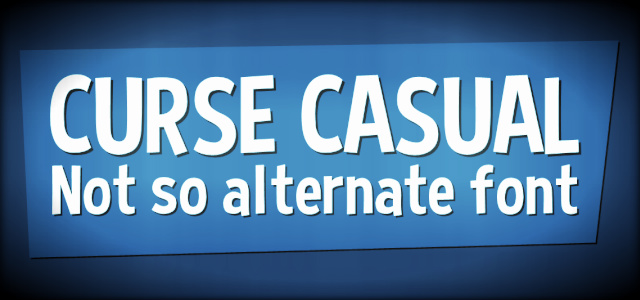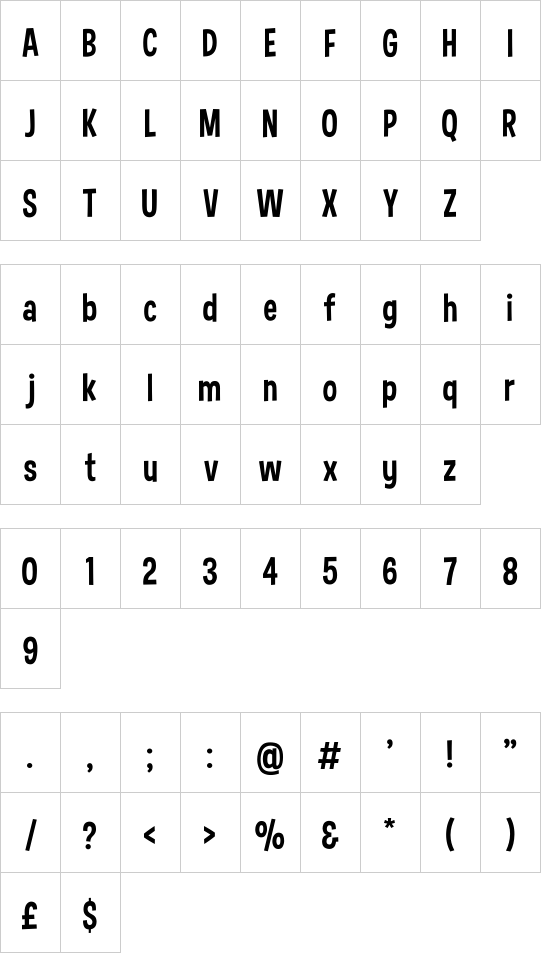
Font copy paste is one of the best online free fancy text and stylish fonts generator websites. From i0.wp.com the fastest meme generator on the planet. We have 1064 free cursive, handwritten fonts to offer for direct downloading · 1001 fonts is your favorite site for free fonts since 2001
Size curse casual à € by jayvee enaguas. The creepy text generator for void and cursed letters is a fun, efficient and easy to use font generator that helps users achieve that scary, spooky text exactly. These fonts look pretty spooky and will give you the shivers, perfect for halloween.
We can call it demonic, satanic, or void, or sometimes hacked text too. The cursed font generator can be used to generate messed up text that can be used on different social media platforms such as under scary. The creepy text generator for void and cursed letters is a fun, efficient and easy to use font generator that helps users achieve that scary, spooky text exactly.
Cursed font generator / curse casual font dafont com : Click on a sample graphic or select a style. The scary text maker is a fun and unique way to generate spooky and crazy looking fonts.